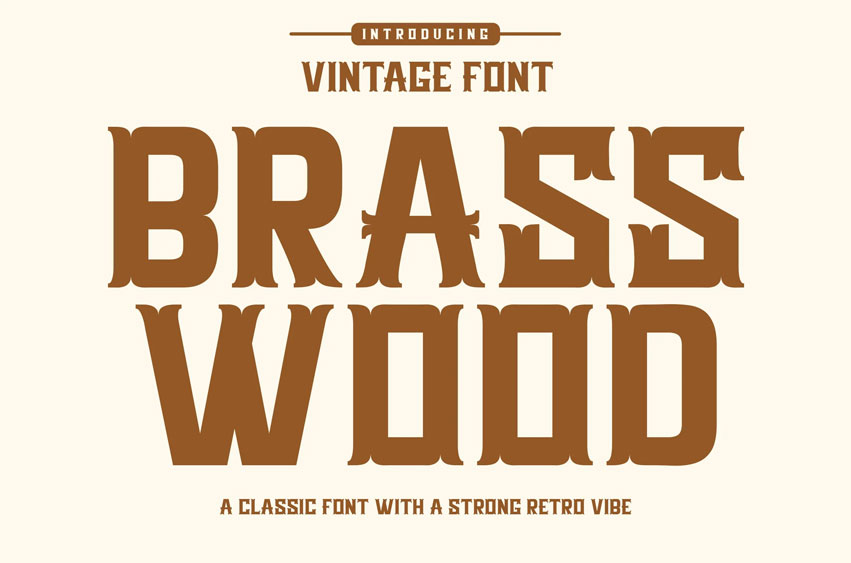
Brasswood Font
Brasswood Font is a vintage-inspired display serif typeface with strong, bold letterforms and classic detailing. Designed for use in branding, packaging, signage, posters, and editorial design, this typeface brings a retro character with high readability.
The sharp serifs and wide letter spacing make it ideal for headlines or identity systems with a classic or heritage theme. The font includes uppercase and lowercase letters, numerals, punctuation, and multilingual support.
• Ligature & Stylistic alternate